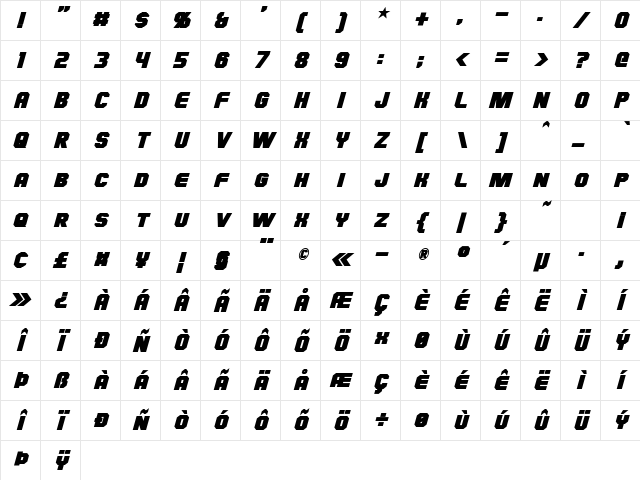
Complete Hauser Bold Italic glyph index. Displaying only characters natively supported by Hauser Bold Italic font.
Hauser is a composed and adaptable typeface that performs quietly and consistently across a wide range of design contexts. The slanted form adds forward momentum and visual energy. Its bold stroke weight gives it real presence on the page.
Pro Tip: Use Hauser for emphasis, pull quotes, and subheadings where its slanted energy can add rhythm to the layout.